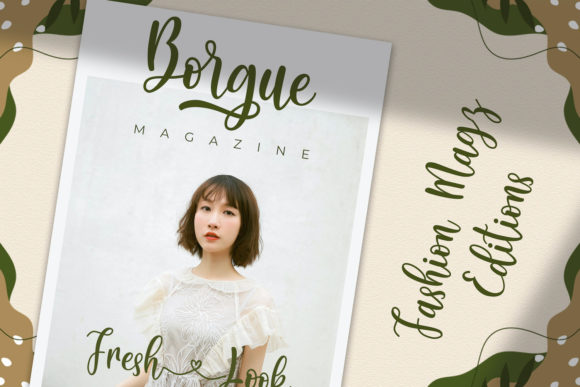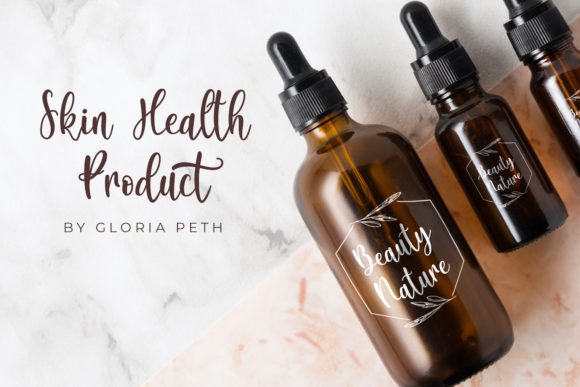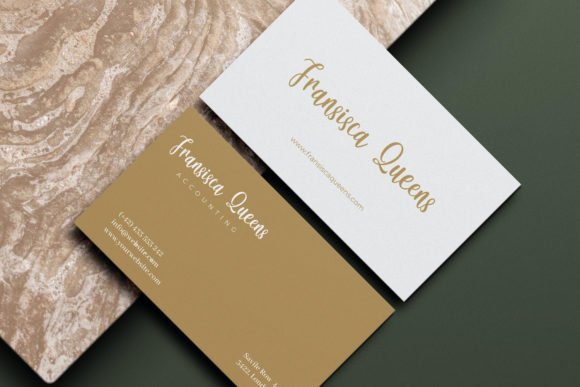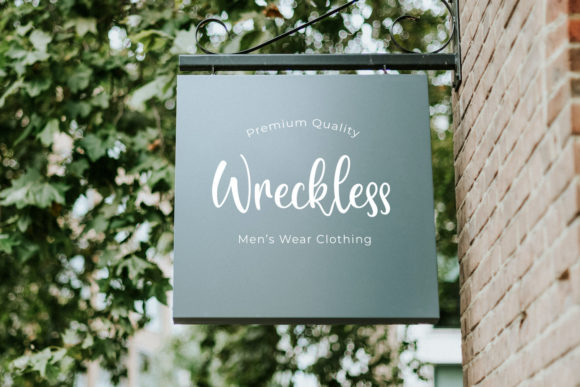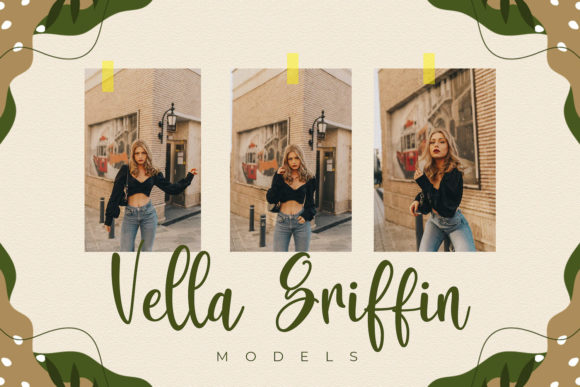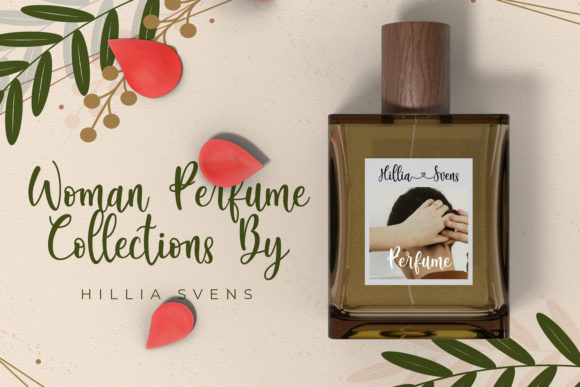
Getting the Perfect Script: Unleashing the Magic of Britany Queens Font
There’s something magical about designing a wedding invitation or a heartfelt thank you card – it’s the moment when you get to put your creative stamp on a special moment in someone’s life. The choice of font can make all the difference, and that’s where the Britany Queens Font comes in – a beautiful script font that adds a touch of elegance and personality to any design.
As a designer, you’re always on the lookout for the perfect font to elevate your work. The Britany Queens Font is a valuable addition to your toolkit, featuring a lovely flow that looks stunning on a variety of designs, from wedding invitations to logos. With its PUA encoding, you can easily access all the glyphs and swashes, giving you endless possibilities to express your creativity.
Brittany Queens Font Key Features
- Unique Characteristics: Elegant, refined, and luxurious font with a touch of French flair
Britany Queens Font Review
First off, let’s talk about what works well with this font. ✨ The designer has done an excellent job with the elegant script and cursive details, making it perfect for titles, quotes, and other decorative text elements. The font’s versatility is also a plus, suitable for various design projects, from weddings to luxury branding. ✨ The subtle nuances in the letterforms add a touch of sophistication, making it a great choice for high-end designs.
However, there are some limitations to consider. ⚠️ The font might not be the best choice for body text, as it can be quite challenging to read due to its cursive nature. Additionally, some users might find the font too ornate or over-the-top, which could be a drawback in certain design contexts. ⚠️
In my overall impression, I’d say the Britany Queens Font is a solid choice for designers looking to add a touch of elegance to their projects. While it may not be suitable for every design scenario, it’s certainly a great option for those who want to create a luxurious, high-end feel. With a little creativity and restraint, this font can be a real showstopper.
Design Considerations:
- Use for titles, quotes, and decorative text elements
- Suitable for luxury branding, weddings, and high-end designs
- Not recommended for body text due to cursive nature
- May be too ornate for certain design contexts
For the best results, use the Brittany Queens Font in conjunction with elegant graphics and minimalist designs. Experiment with different font sizes, colors, and styles to create a unique look that suits your brand or style.
The Brittany Queens Font is ideal for creating elegant and sophisticated designs for:
– Luxury branding and packaging
– Fine art and creative projects
Alternatives to Brittany Queens Font
Playfair Display is a high-end serif font with elegant and luxurious feel. It’s perfect for creating a sophisticated and high-end brand identity. When to use: Luxury brands, fashion magazines, and high-end corporate designs. Playfair Display is more ornate and luxurious compared to Brittany Queens Font, making it ideal for projects that require a touch of elegance.
Great Vibes is a beautiful script font that’s perfect for creating a unique and personal brand identity. It’s great for designers who want to add a touch of elegance and sophistication to their designs. When to use: Fashion brands, beauty products, and personal branding projects. Great Vibes is more fluid and expressive compared to Brittany Queens Font, making it ideal for projects that require a personal touch.
Carolyna Pro is a modern script font that’s perfect for creating a unique and eye-catching brand identity. It’s great for designers who want to add a touch of sophistication and elegance to their designs. When to use: Fashion brands, beauty products, and personal branding projects. Carolyna Pro is more modern and sleek compared to Brittany Queens Font, making it ideal for projects that require a contemporary touch.